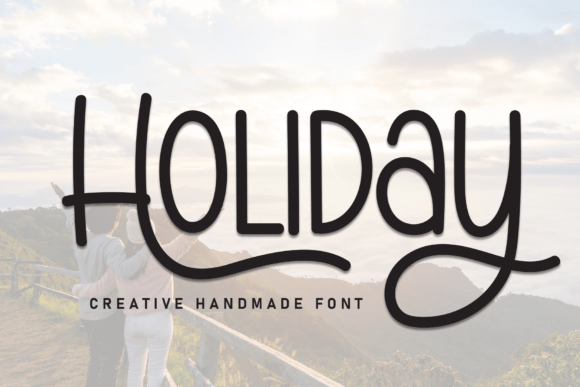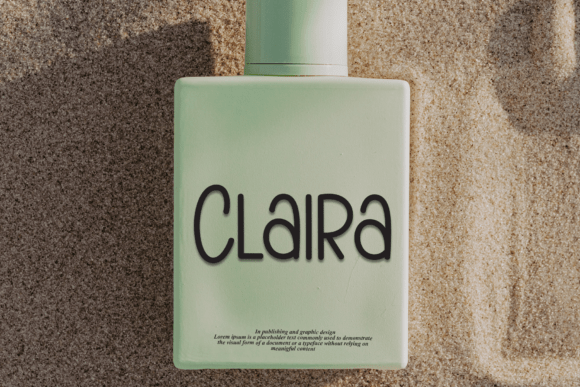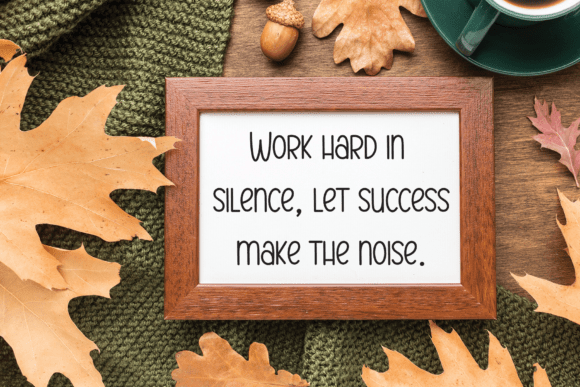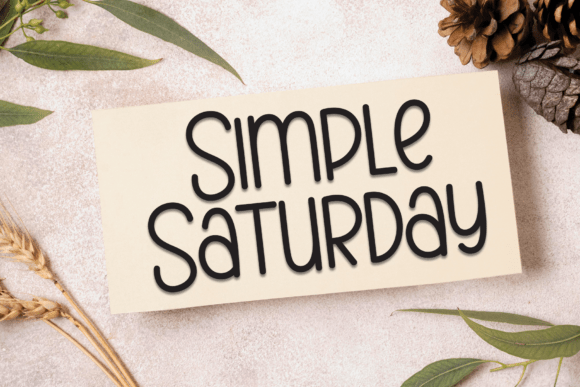
Holiday Font: A Cute Display Font for Social Media Design
About the Holiday Font
The wait is over! The incredible Holiday Font is now available for your design toolkit. Holiday is a casual and neat display font that radiates a fresh, friendly vibe. With clean lines and a relaxed structure, it’s perfect for packaging, posters, and social media graphics. The approachable design adds charm and clarity to projects while maintaining a polished appearance.
Holiday’s friendly, casual nature makes it ideal for projects requiring a lighthearted yet sophisticated feel. Consider it for branding initiatives for cafes, boutiques, or children’s products. It also excels in short-form applications like headlines, logos, and short promotional text on packaging. Avoid using Holiday for lengthy body text or UI elements; its legibility suffers in smaller sizes or continuous paragraphs.
Pairing Holiday with a clean sans-serif like Open Sans for body copy creates a balanced, approachable aesthetic. For a more playful feel, consider a rounded geometric sans-serif such as Lato. Alternatively, a delicate script font can add a touch of elegance while maintaining the overall casual vibe.
The font’s core personality is best described as cheerful and approachable, possessing a modern yet timeless quality. Its relaxed structure lends itself well to projects that need a friendly and inviting feel without sacrificing professionalism.
Holiday Font Usage Examples
Holiday Font Example